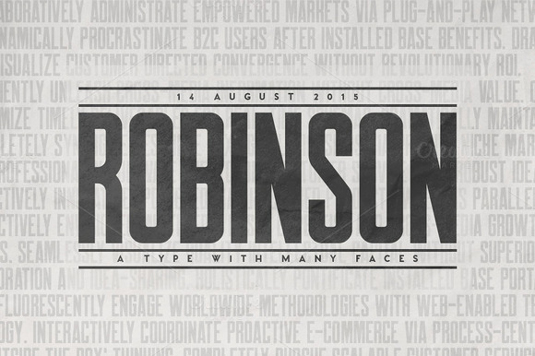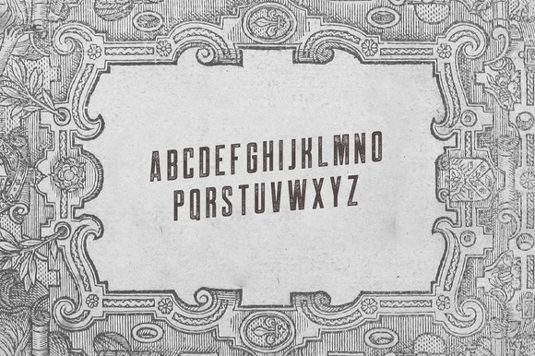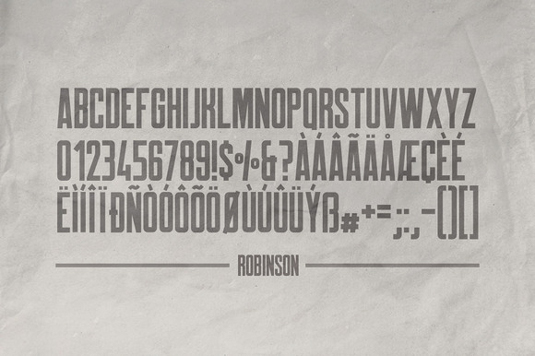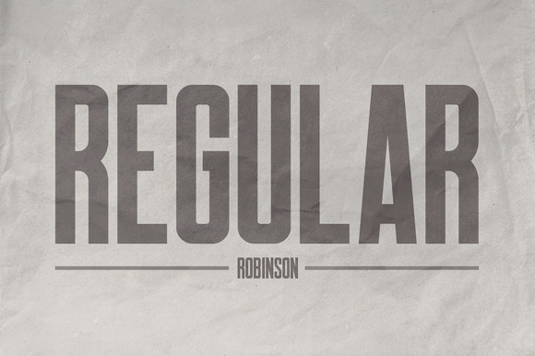
Font of the day: Robinson
Every day we showcase the best fonts on the web. Today it's Robinson by Mehmet Reha Tugcu.
Robinson by Mehmet Reha Tugcu
Kicking off our fonts of the day this week is display typeface Robinson by designer Mehmet Reha Tugcu. Inspired by vintage newspaper titles, this bold typeface was designed with magazines and posters in mind.